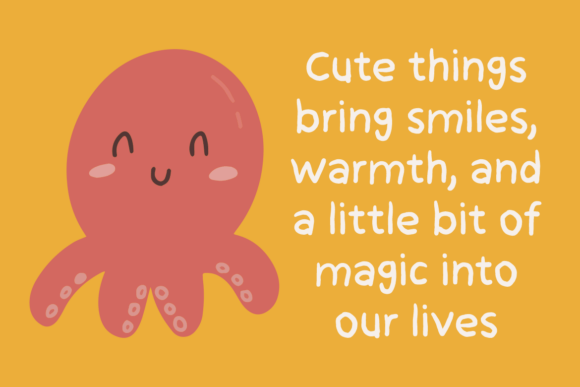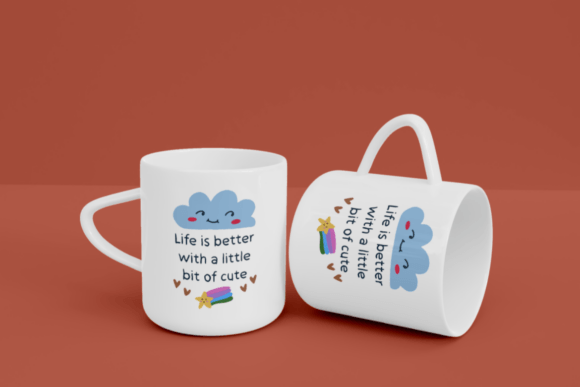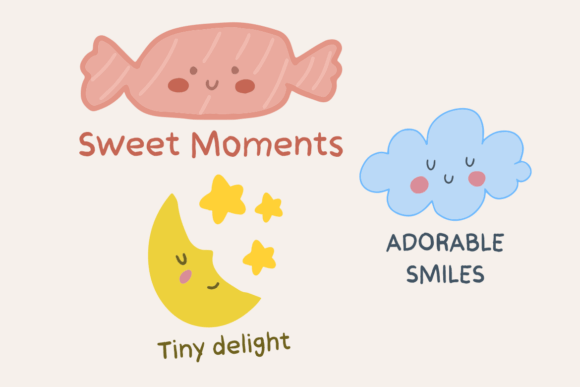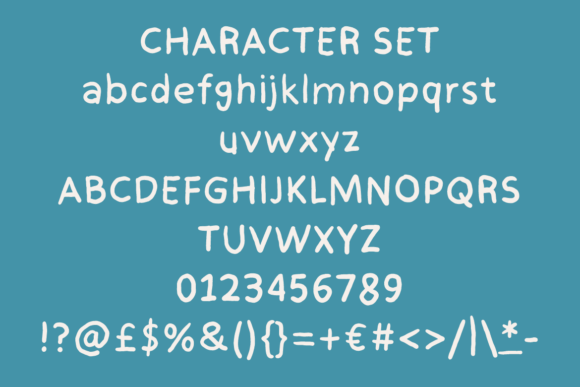
Introducing Clearline Font: Adding a Touch of Whimsy to Your Designs
In the world of typography, fonts play a crucial role in conveying the tone and personality of a brand or design. If you’re looking for a font that can add a touch of whimsy and playfulness to your projects, look no further than Clearline. This delightful handwriting font is designed to bring a sense of childlike wonder to your designs, making it perfect for brands and designers who want to evoke a sense of creativity and fun.
The Characteristics of Clearline Font
Clearline is a monoline, bold font with rough edges and a scribble-like quality that mimics the authentic feel of kids’ handwriting. Despite its hand-drawn look, Clearline maintains a clean readability that makes it versatile for various applications. The font’s bold strokes and playful demeanor make it an excellent choice for designs that require a personal touch.
Perfect for Playful Brands and Designs
Clearline is ideal for brands and designs that aim to evoke a sense of playfulness and creativity. Its hand-drawn charm is equally effective on movie titles that need to convey innocence or book covers that require an element of uniqueness. Whether you’re crafting an invitation card that stands out, branding materials that resonate with a youthful audience, or packaging with a personal touch, Clearline is your go-to font.
Versatile Applications
One of the best things about Clearline is its versatility. This font can be used for a wide range of applications, including:
- Invitation cards: Add a personal touch to your invitations with Clearline’s playful and whimsical design.
- Branding materials: Use Clearline to create branding materials that resonate with a youthful audience.
- Packaging: Add a touch of personality to your packaging with Clearline’s hand-drawn charm.
- Movie titles: Convey innocence and playfulness with Clearline’s bold and scribble-like design.
- Book covers: Add an element of uniqueness to your book covers with Clearline’s hand-drawn charm.
- Greeting cards: Create greeting cards that are both personal and playful with Clearline.
- Posters: Use Clearline to create posters that grab attention and evoke a sense of creativity.
- Stickers: Add a touch of whimsy to your stickers with Clearline’s playful design.
Why Choose Clearline Font?
So, why choose Clearline font for your design projects? Here are just a few reasons:
- Unique and playful design: Clearline’s hand-drawn charm and scribble-like quality make it a one-of-a-kind font that’s sure to grab attention.
- Versatile: Clearline can be used for a wide range of applications, from invitation cards to movie titles.
- Clean readability: Despite its hand-drawn look, Clearline maintains a clean readability that makes it easy to read and understand.
- Evokes a sense of creativity: Clearline’s playful and whimsical design is sure to evoke a sense of creativity and fun in your designs.
In conclusion, Clearline font is a delightful handwriting font that brings a touch of whimsy and personality to your design projects. With its monoline, bold strokes, and scribble-like quality, Clearline captures the essence of childlike wonder, making it perfect for brands and designs that aim to evoke a sense of playfulness and creativity. Whether you’re a designer, crafter, or brand owner, Clearline is a great choice for anyone looking to add a personal touch to their designs. So, why not give Clearline a try and see how it can bring a touch of magic to your designs?